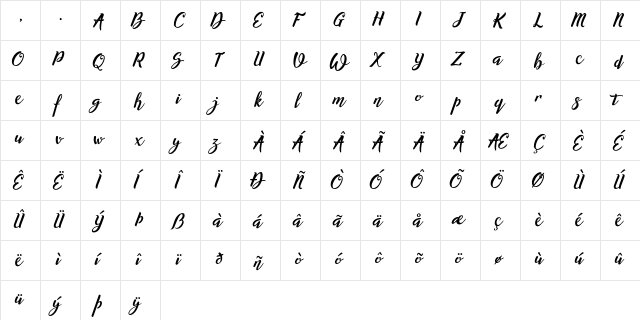
Willynta Script Regular
| Foundry | Patria Ari Typestudio |
| Designer | Patria Ari Wijonarko |
Design Context for Willynta Script Typeface
Willynta Script brings a calligraphic fluidity to the page — its connecting strokes and expressive curves give it an unmistakably human quality.